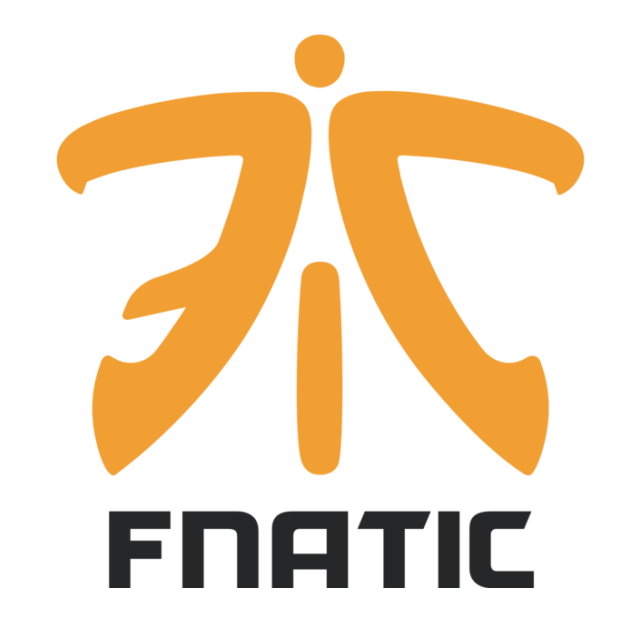
Fnatic Logo Font
EntertainmentFnatic is a professional esports organization founded in 2004. It is one of the most successful and recognizable teams in the industry, with a recognizable logo featuring a stylized letter "F".